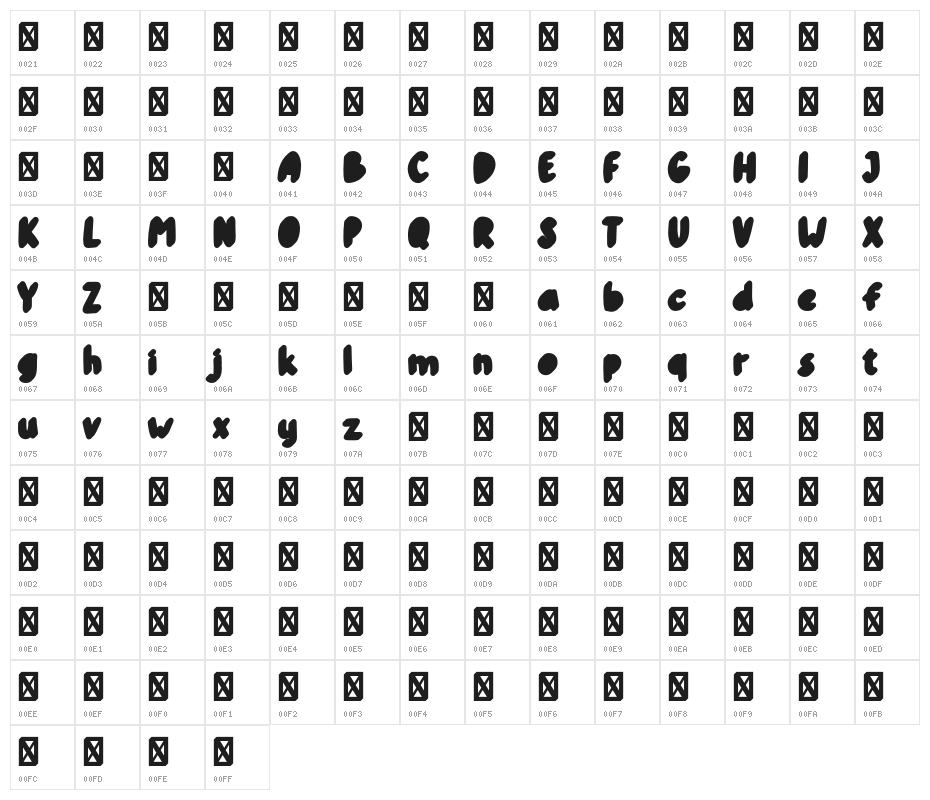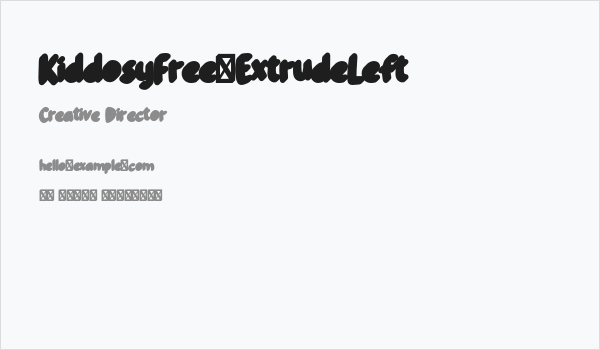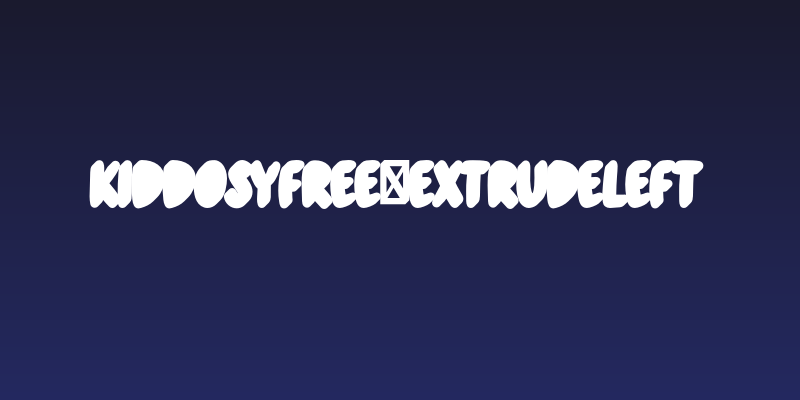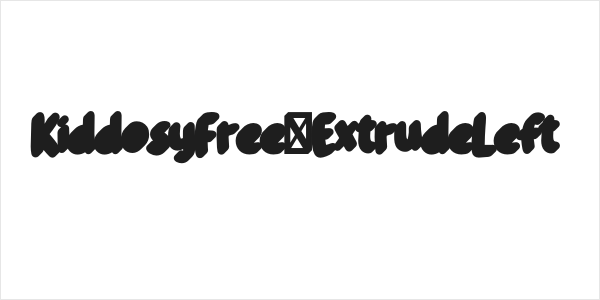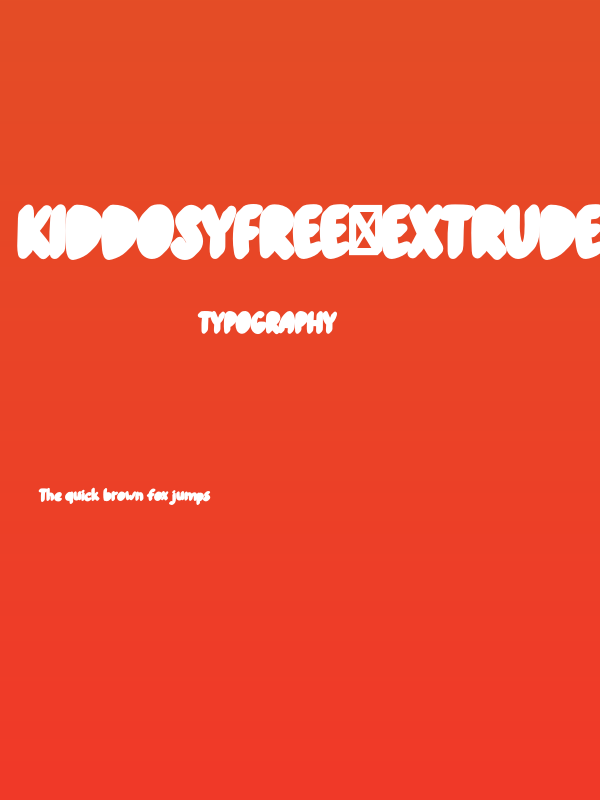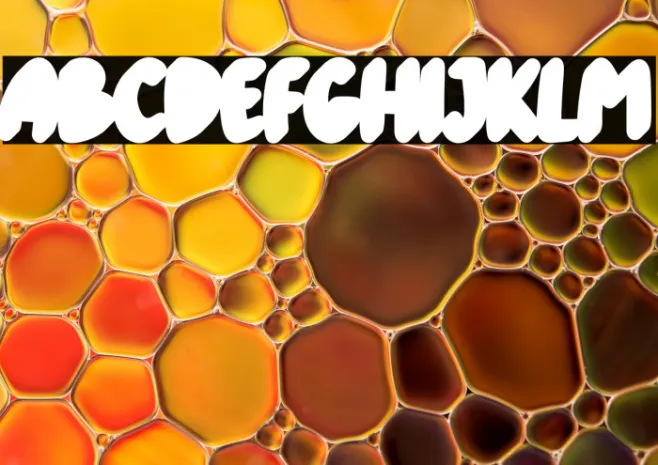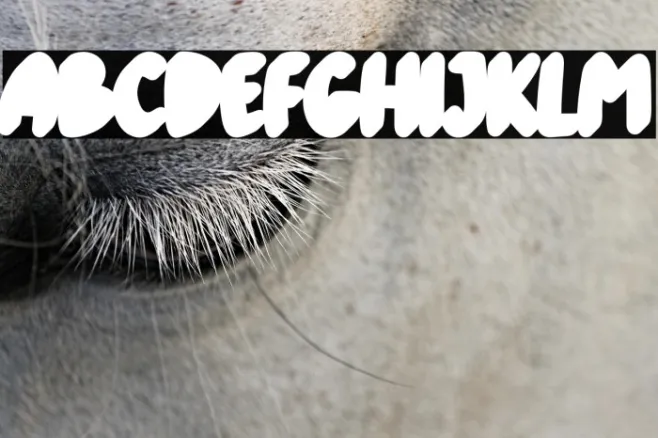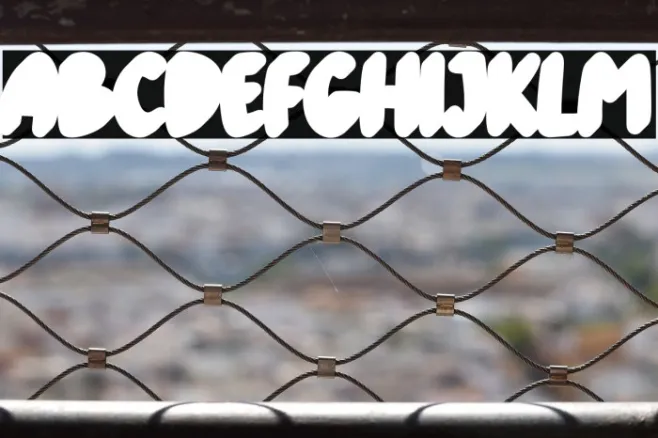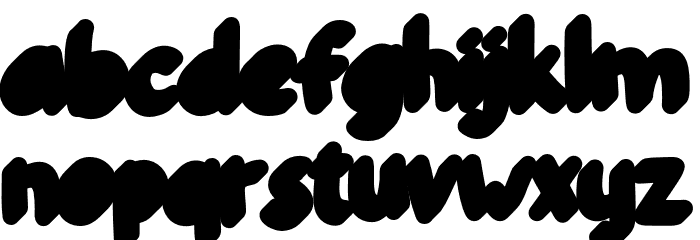
KiddosyFree-ExtrudeLeft Font
KiddosyFree-ExtrudeLeft Description
This playful and bold font features thick, rounded letters with a whimsical style. The characters are tightly spaced, giving a sense of cohesion and energy. The uppercase and lowercase letters maintain a consistent thickness, creating a uniform appearance. The font's exaggerated curves and smooth lines contribute to its friendly and approachable look. It lacks any sharp edges, enhancing its soft and inviting feel. The overall design is reminiscent of a cartoonish or childlike aesthetic, making it ideal for projects that require a fun and informal touch.
| Use Case | Logos, Posters, Children's materials |
| Proposed Projects | Ideal for children's books, playful branding, party invitations, and creative posters. |